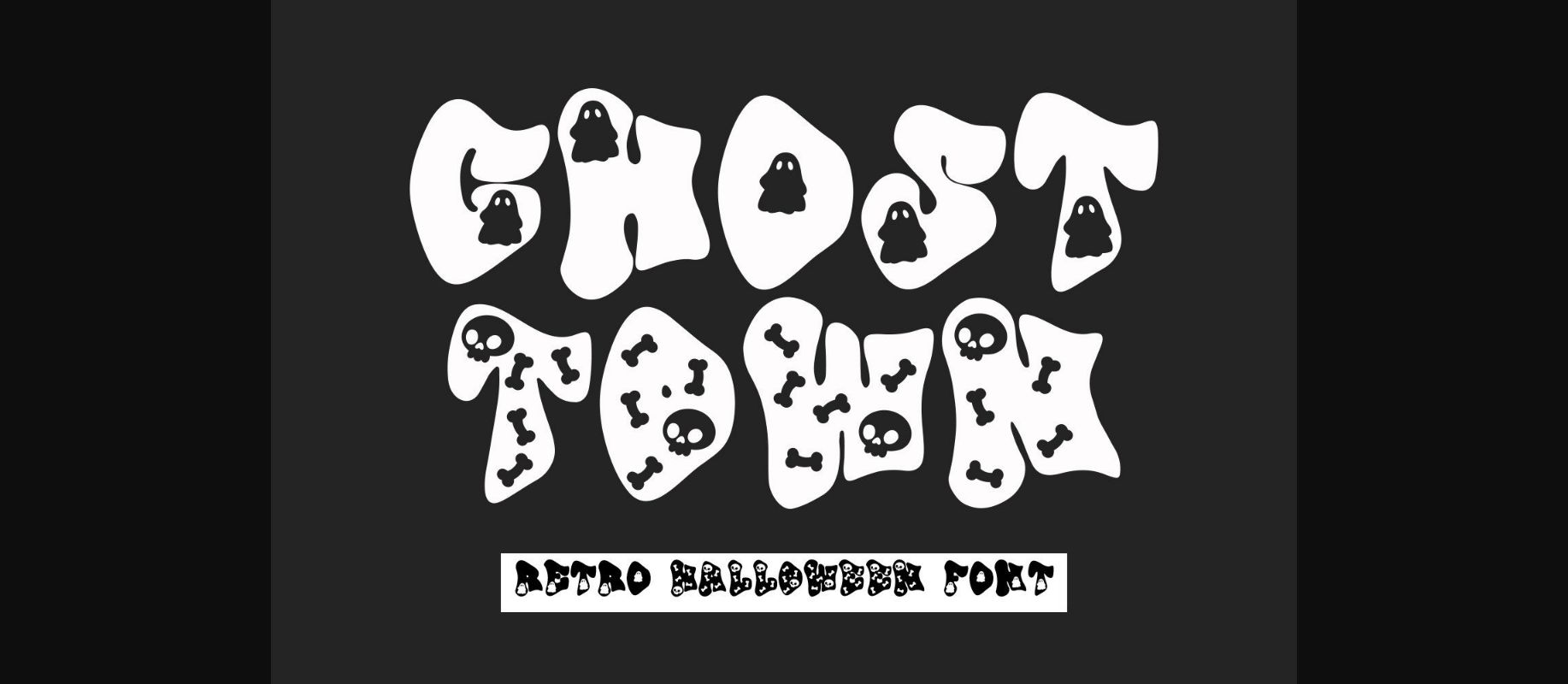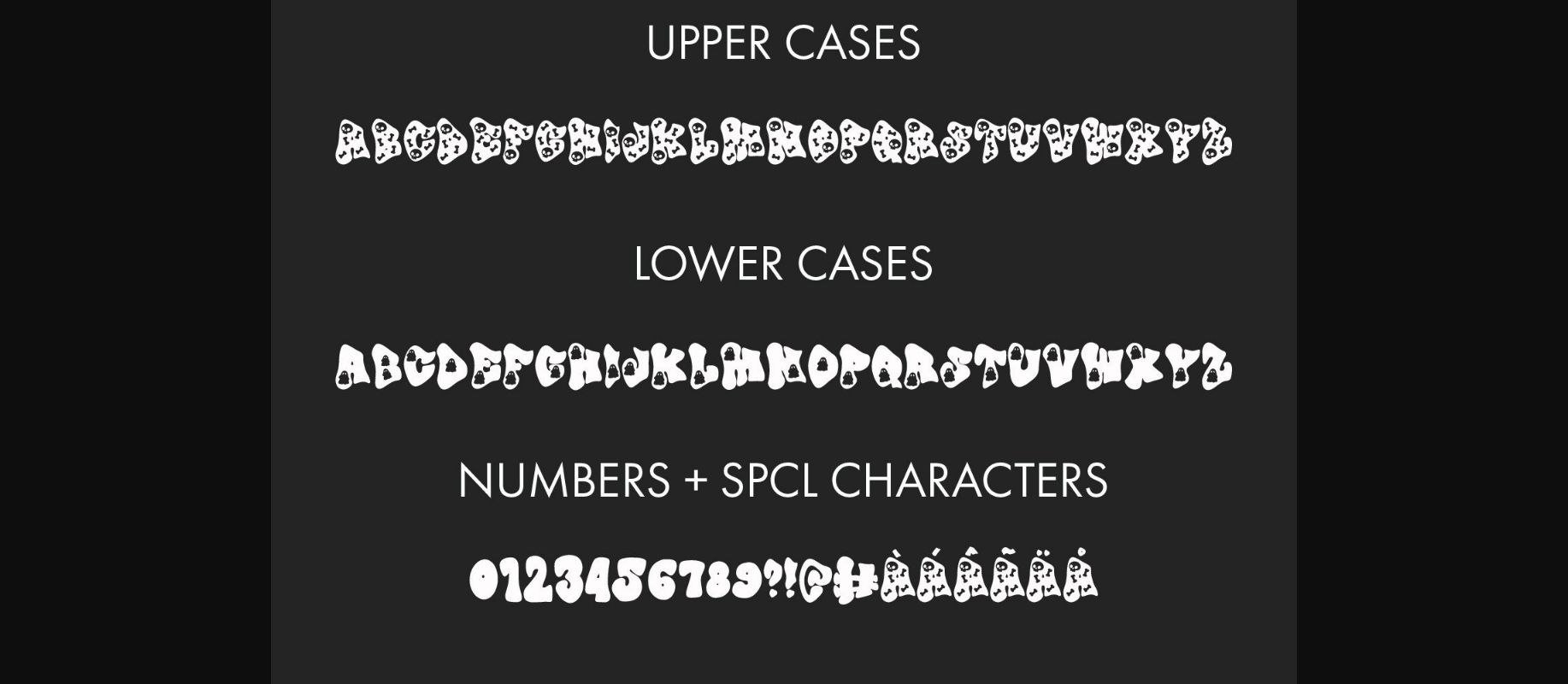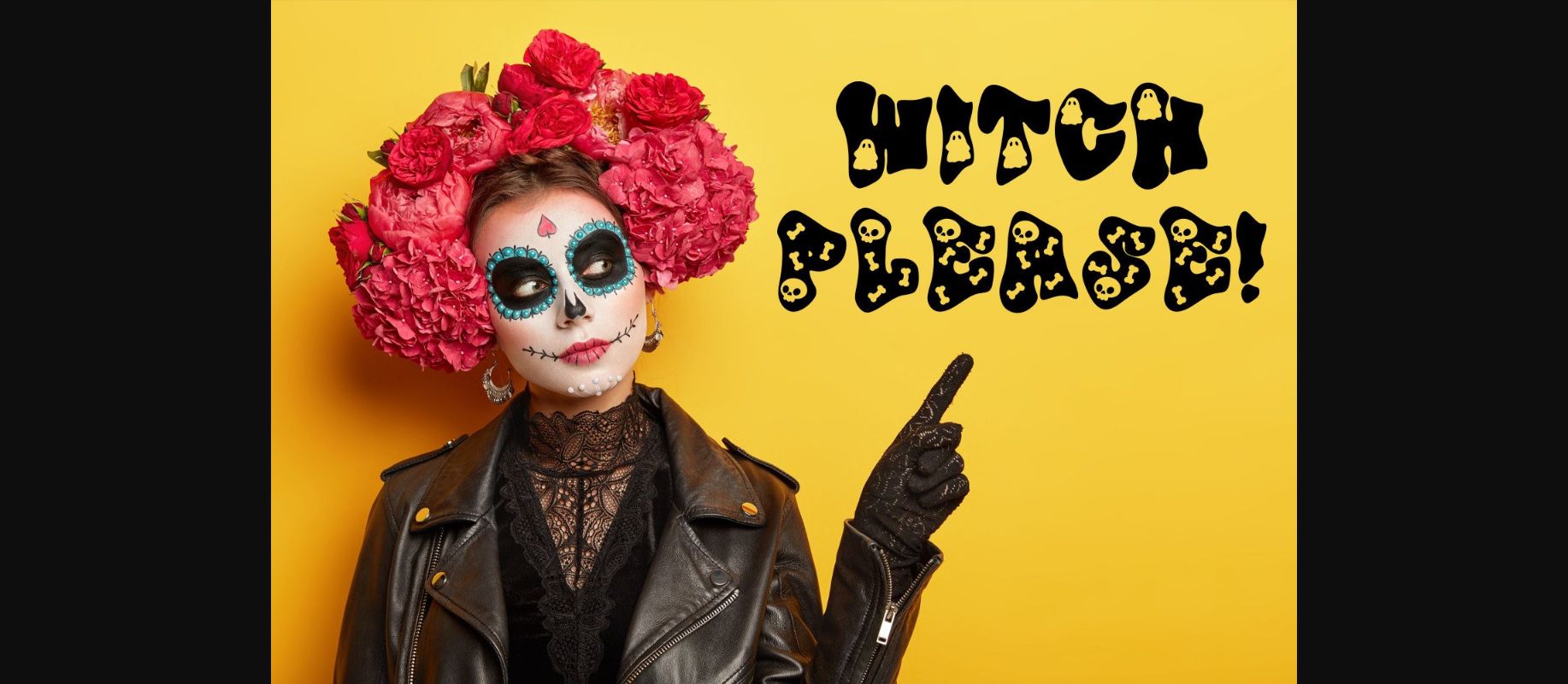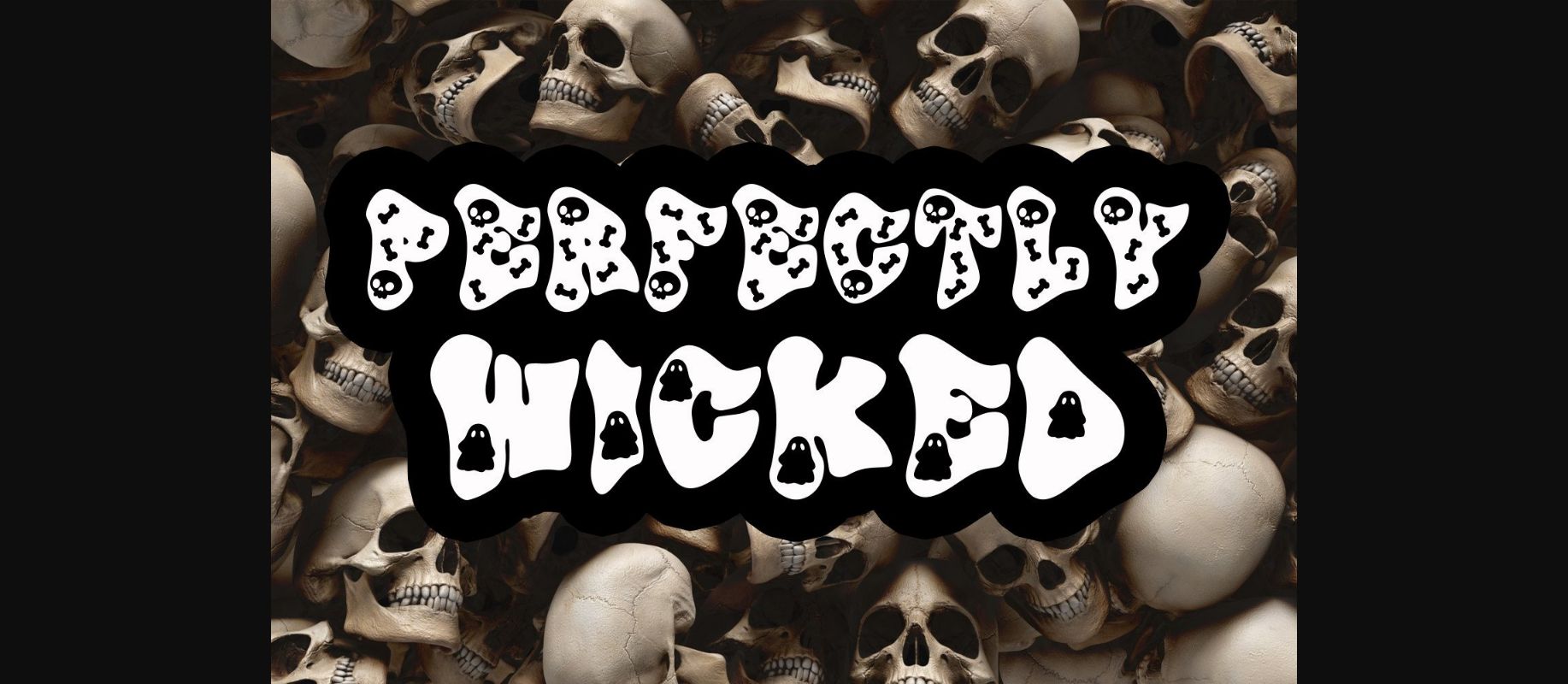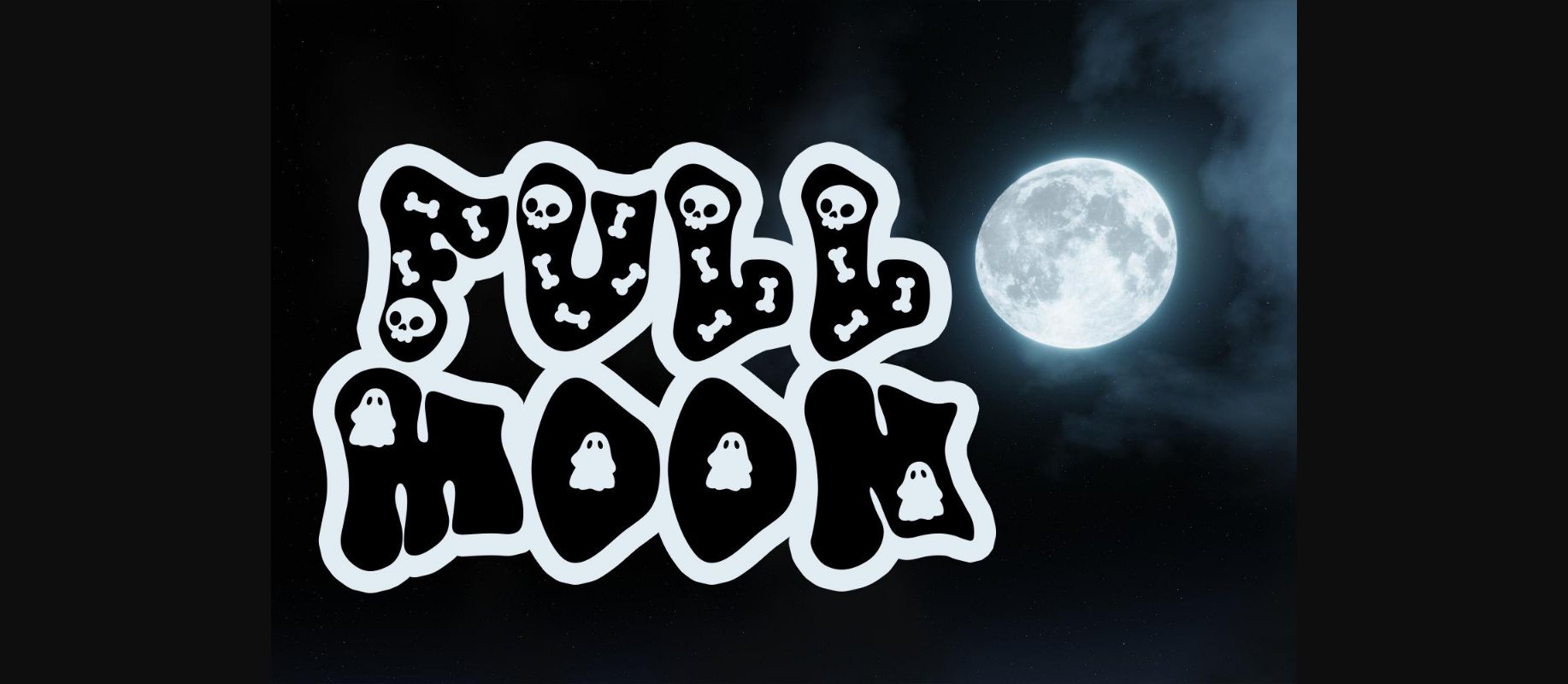
Ghost Town Font
About Ghost Town Font
Ghost Town is a retro and quirky decorative font with a Halloween vibe. It is perfect to use for Halloween-themed projects such as stencils, T-shirts, mugs, and more. Add it to your fonts library, and have fun creating spooky and quirky designs.